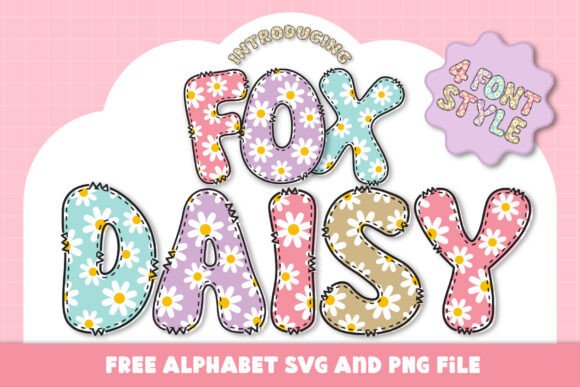
Fox Daisy Font
Add a touch of charm and playfulness to your designs with the Fox Daisy Color Font! This vibrant and whimsical font features a bold letter style adorned with delicate daisy patterns, making it perfect for creating eye-catching designs.
The font comes in four lovely color variations:
Fox Daisy Pink: A sweet and cheerful pink background with lively white daisies.
Fox Daisy Mint: A refreshing mint tone paired with bright daisies for a calming yet fun vibe.
Fox Daisy Purple: A dreamy lavender hue complemented by vibrant daisy accents.
Fox Daisy Beige: A neutral beige with a sophisticated and cozy daisy pattern.
Perfect for use in greeting cards, invitations, posters, logos, and playful branding, the Fox Daisy font adds a splash of personality to any project.